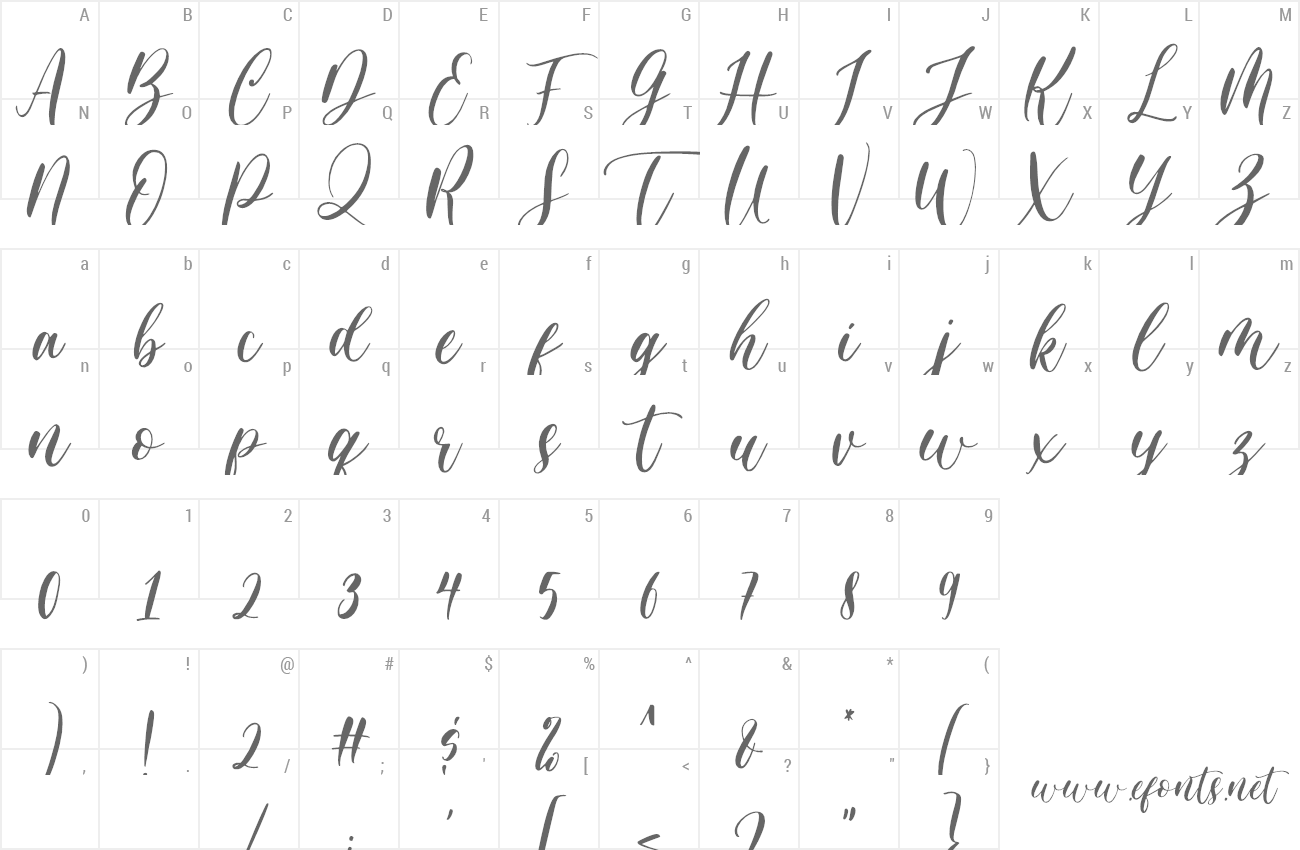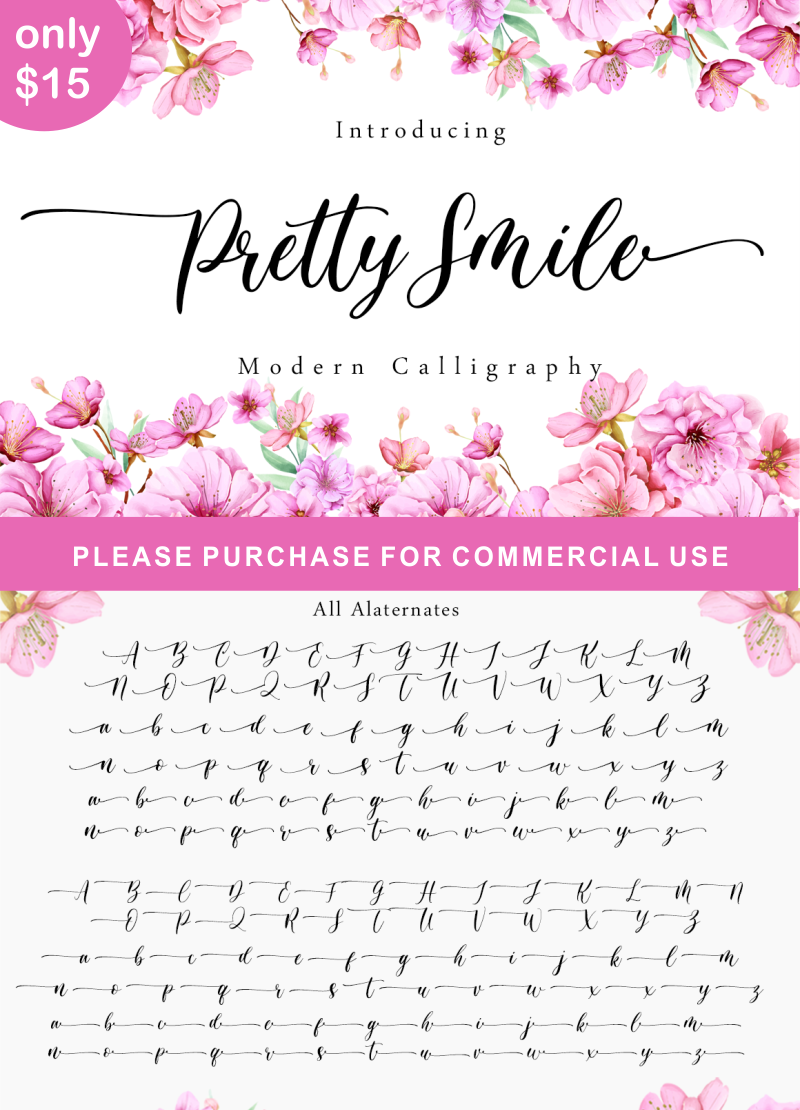
Pretty Smile is a beautiful calligraphy font perfect for crafting, branding, invitation, stationery, wedding designs, social media posts, advertisements, product packaging, product designs, label, photography, watermark, special events or anything. Pretty Smile comes with full set of uppercase and lowercase letters, swash alternates, ligatures,multilingual symbols, numerals and punctuation. ENGLISH : This font is FREE FOR PERSONAL USE ONLY !! Purchase commercial license here : -> https://fontbundles.net/sronstudio/762990-pretty-smile-modern-calligraphy -> https://www.creativefabrica.com/product/pretty-smile/ if you have any question , feel free to drop me a message at sronstudio@gmail.com Thank you :) ----------------------------- BAHASA INDONESIA - MOHON DIBACA !!! Berhati-hatilah dan luangkan waktu untuk membaca Syarat & Ketentuan penggunaan font, sebelum memutuskan untuk menggunakan font secara komersial. Ketidaktahuan bukanlah alasan untuk sebuah pelanggaran hukum. Dengan meng-install font ini, anda dianggap mengerti dan menyetujui semua Syarat & Ketentuan penggunaan font dibawah ini: 1. Lisensi font ini adalah "Personal Use". More... |